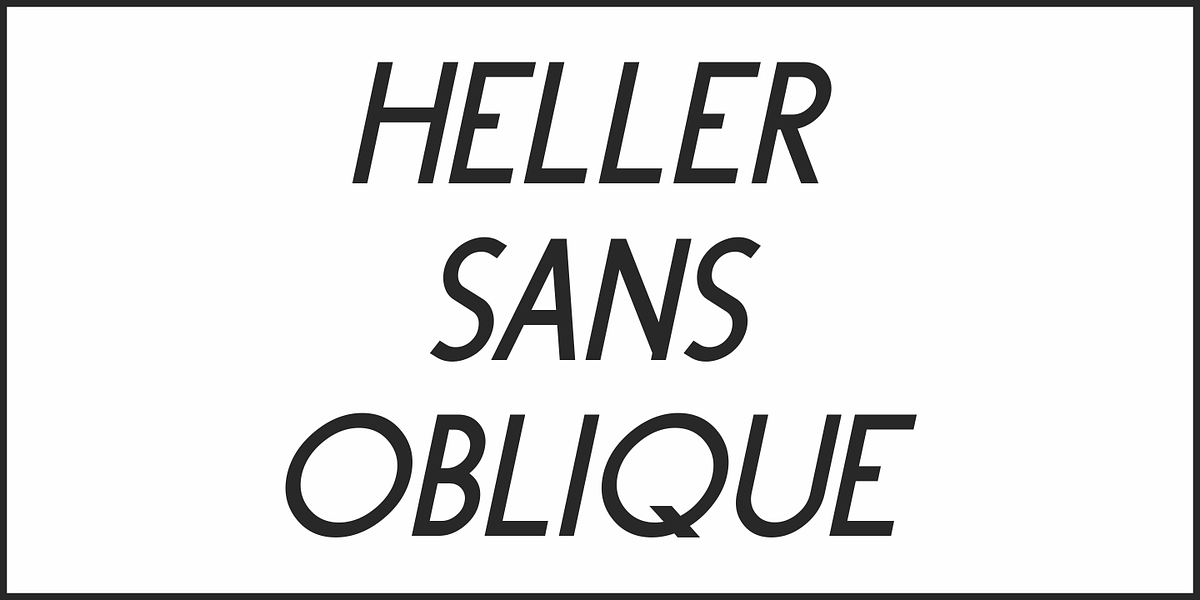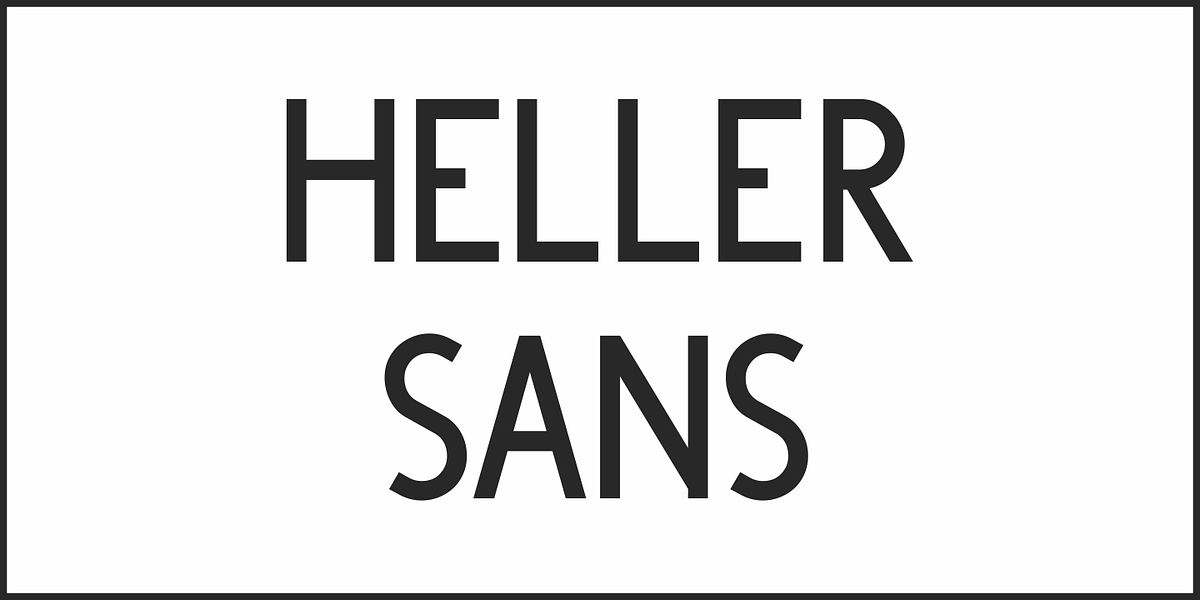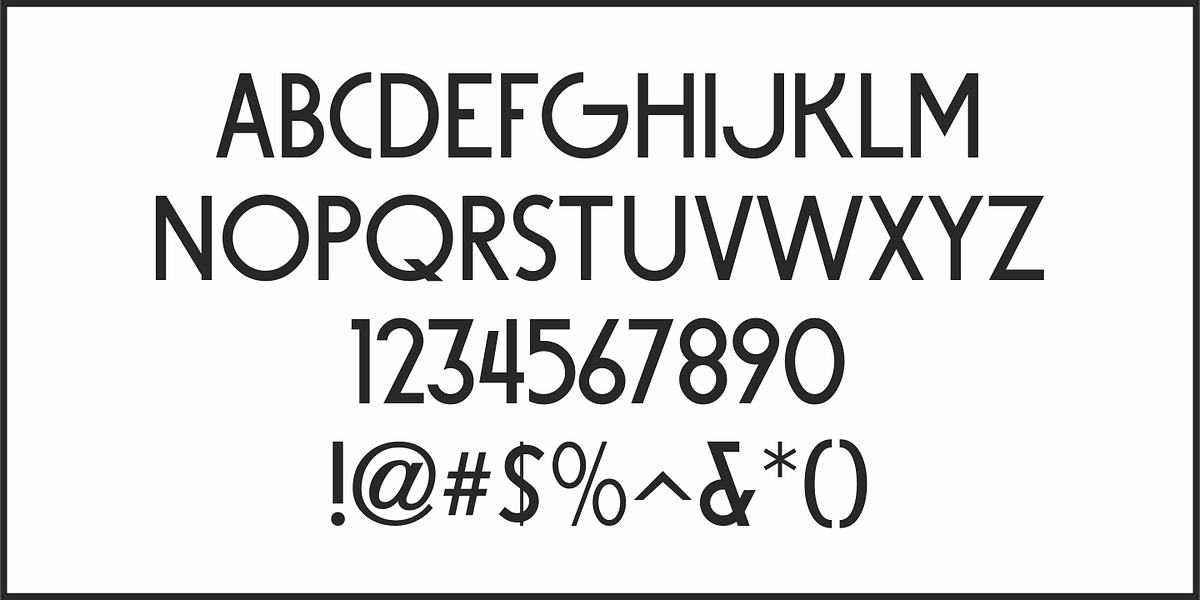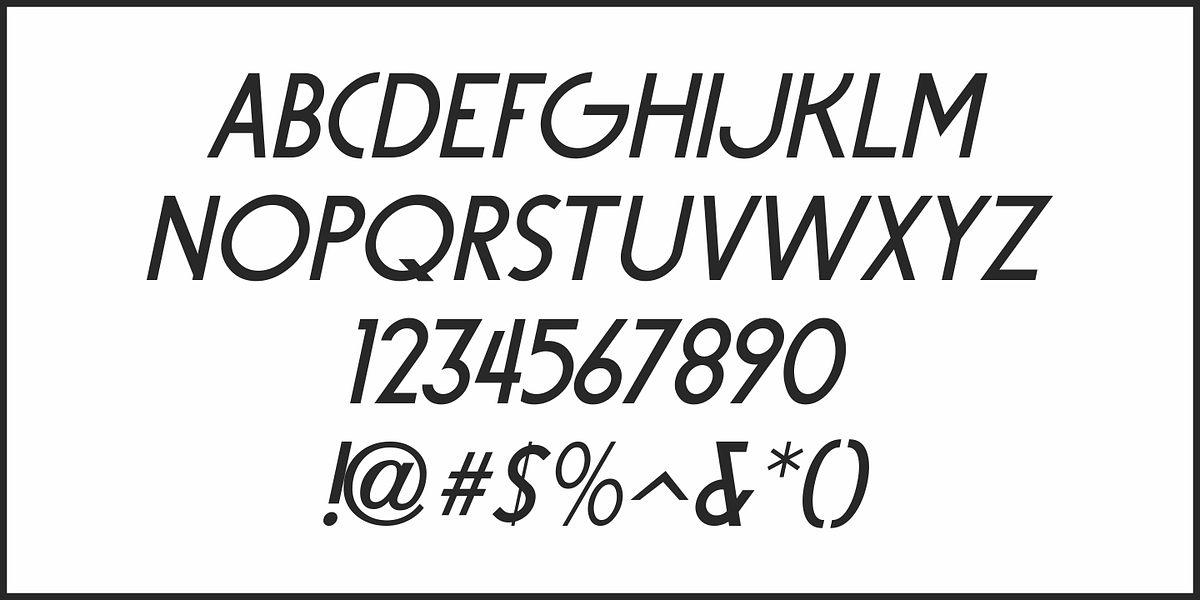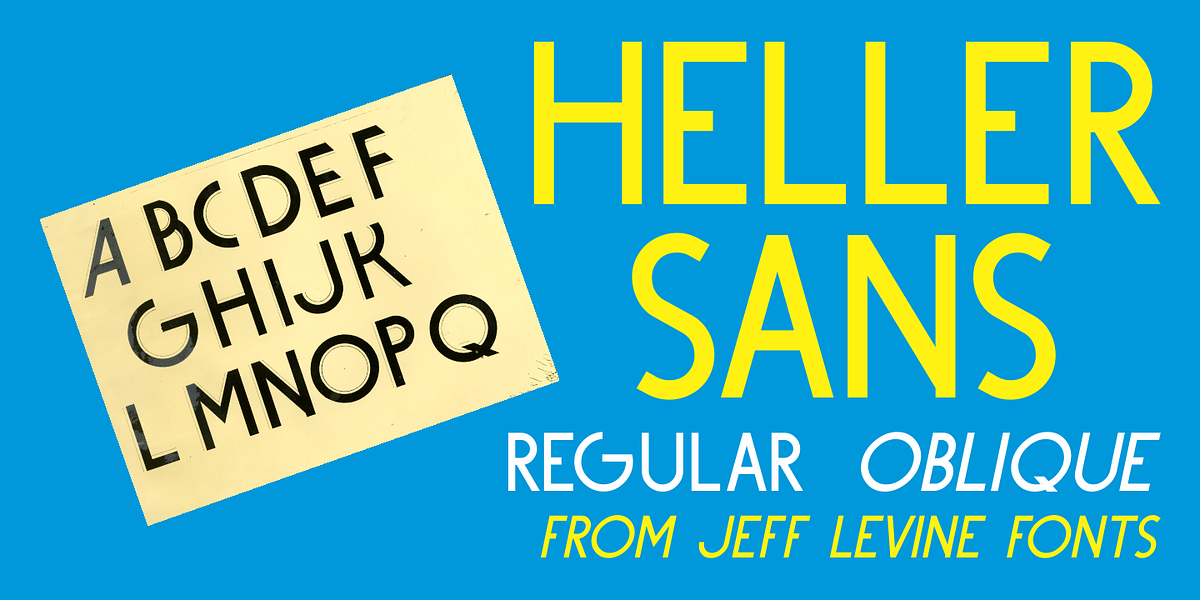
Heller Sans JNL
Heller Sans JNL is based on the main letterforms of an experimental alphabet designed by Steven Heller; noted author of over 170 books on design and visual culture. Some modifications were made in turning his design into a digital font.
In his own words, here is the background to this typeface:
“I recently recovered this from the junk heap. It is a yellowing photostat of my first and only typeface design (1969-70). Total folly! At the time I was smitten by Art Moderne lettering. I called it “Klaus Boobala Bold” because I liked the K and B.
I’ve lost the letters S through Z, which were made. The letters were drawn with compass, Techno pen (that frequently clogged). as well as a triangle and T-square. The inline and outline made no real logical sense.
I based the design, in part, on Kabel, Avant Garde and it was a product of whatever I could accomplish with those tools. The caps-only alphabet was photographed and produced as a film negative that was cut in foot-long strips and spliced to fit on a Typositor reel. Sadly, the negatives made for the font were too brittle and the splice snapped apart in the Typositor.
I worked on it for well over a month and used the face only once. I realized with this attempt, like so many other times I attempted different challenges, that type design — indeed mechanical drawing — was not my strong suit.”
Heller Sans JNL is available in both regular and oblique versions.